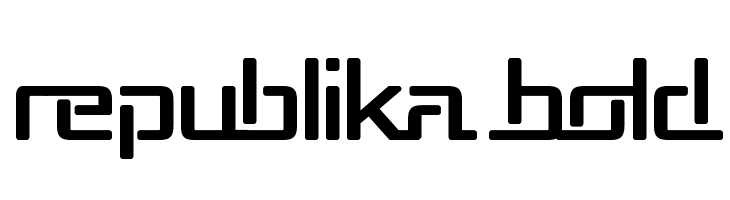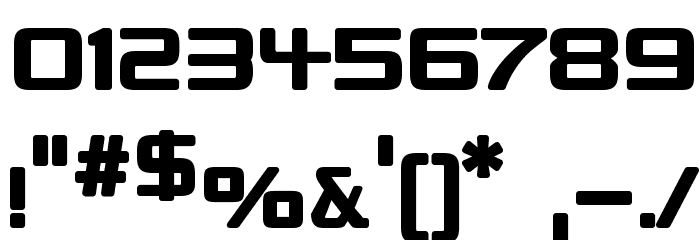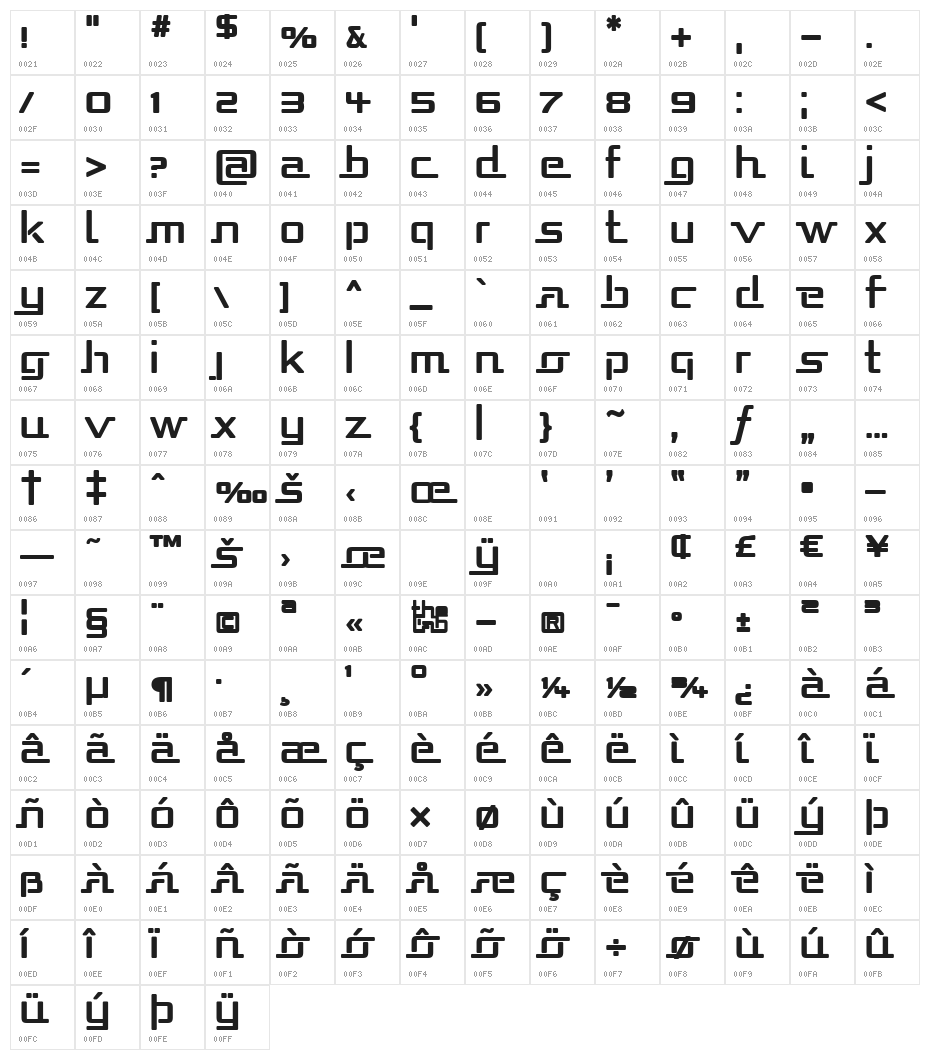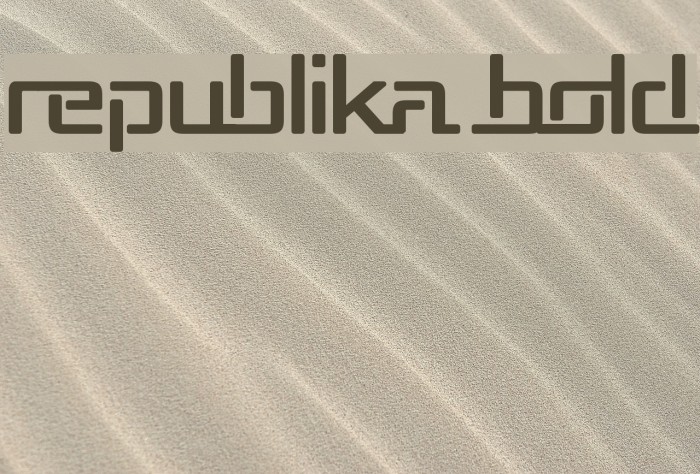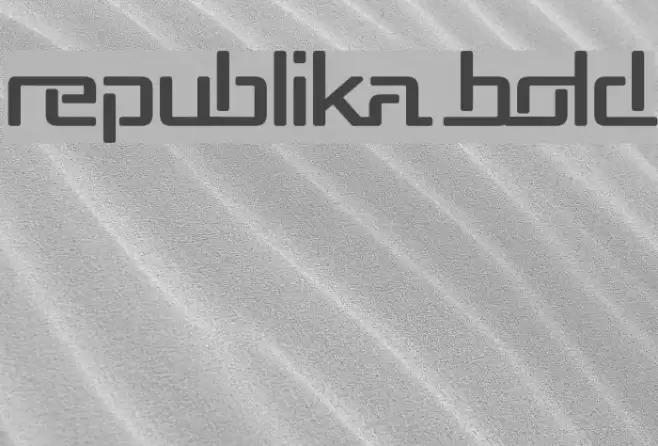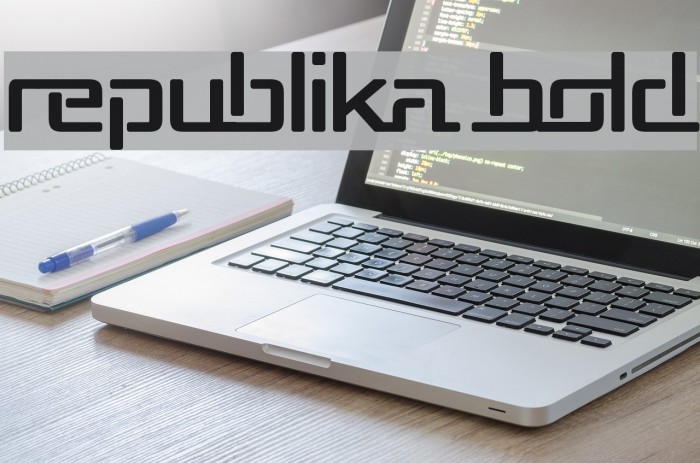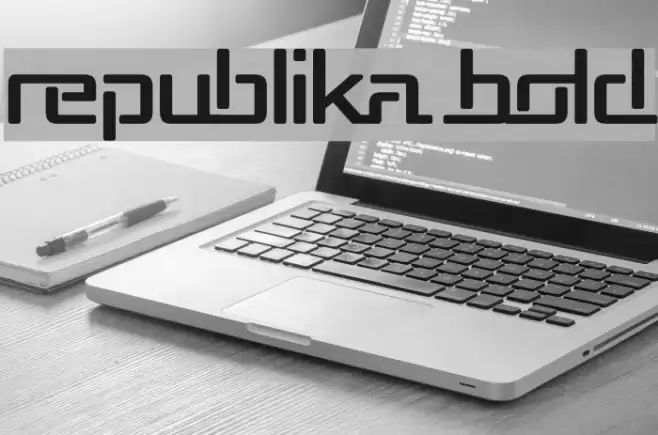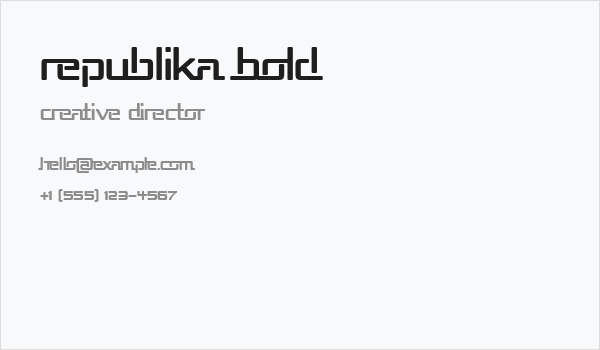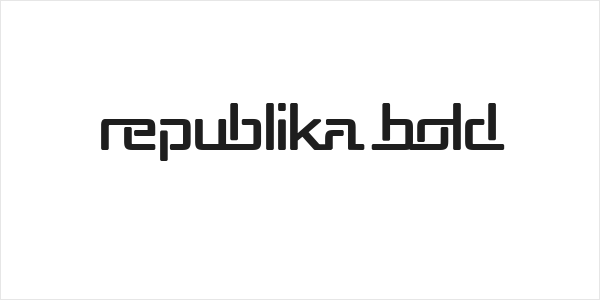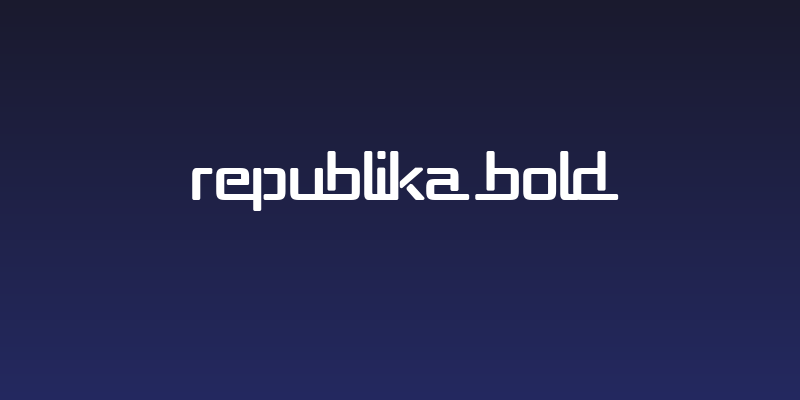
Republika Bold Font
Republika Bold Description
This font features a bold, geometric design with a modern and futuristic aesthetic. Its characters are constructed with uniform stroke widths, giving it a monospaced appearance. The rounded edges and consistent line thickness contribute to a clean and structured look, making it suitable for digital and print media. The font's design is both functional and visually appealing, with a focus on clarity and readability. It includes a full set of uppercase and lowercase letters, numbers, and a variety of special characters, ensuring versatility in usage.
| Proposed Projects | Ideal for technology branding, digital interfaces, posters, and modern advertising. |